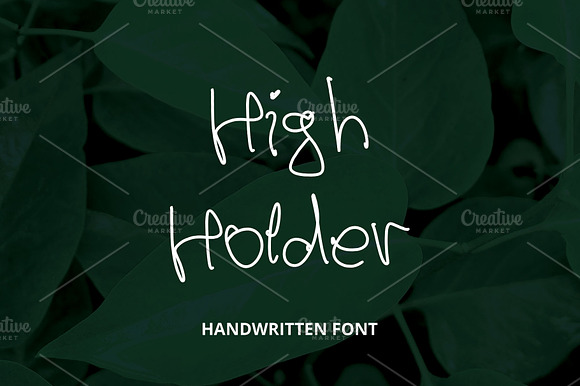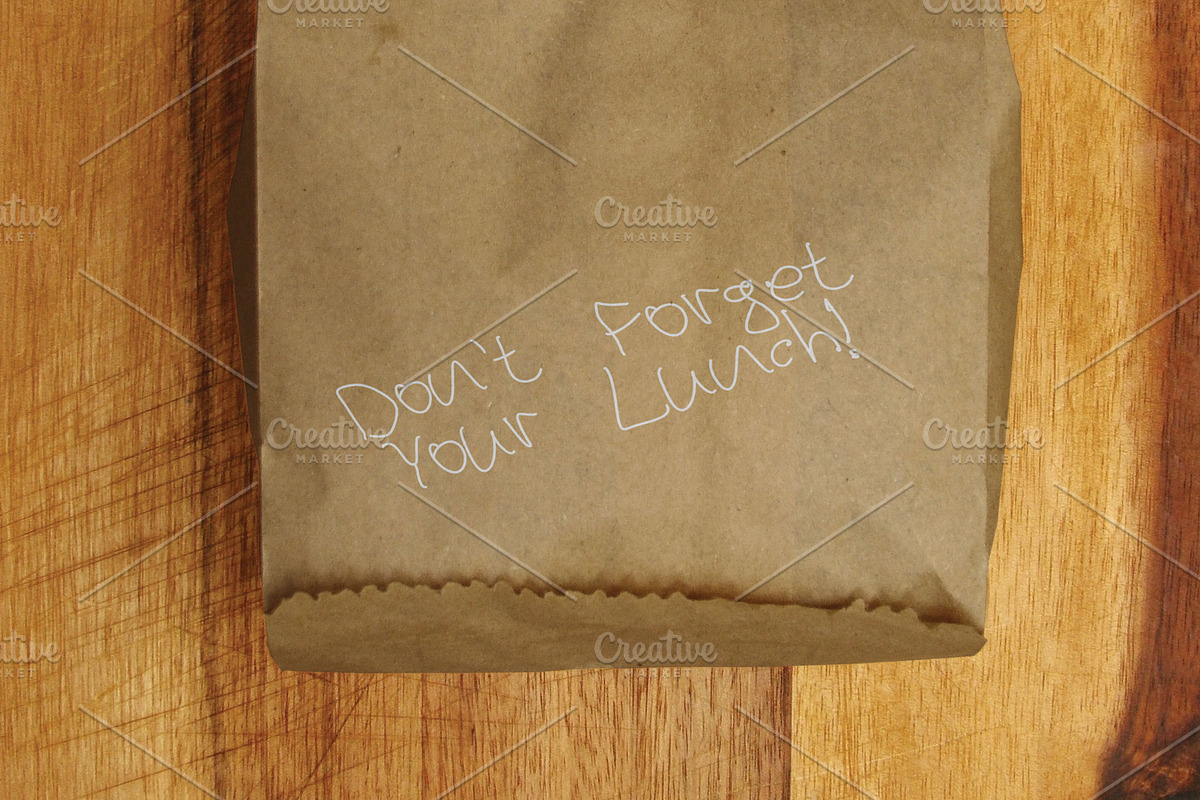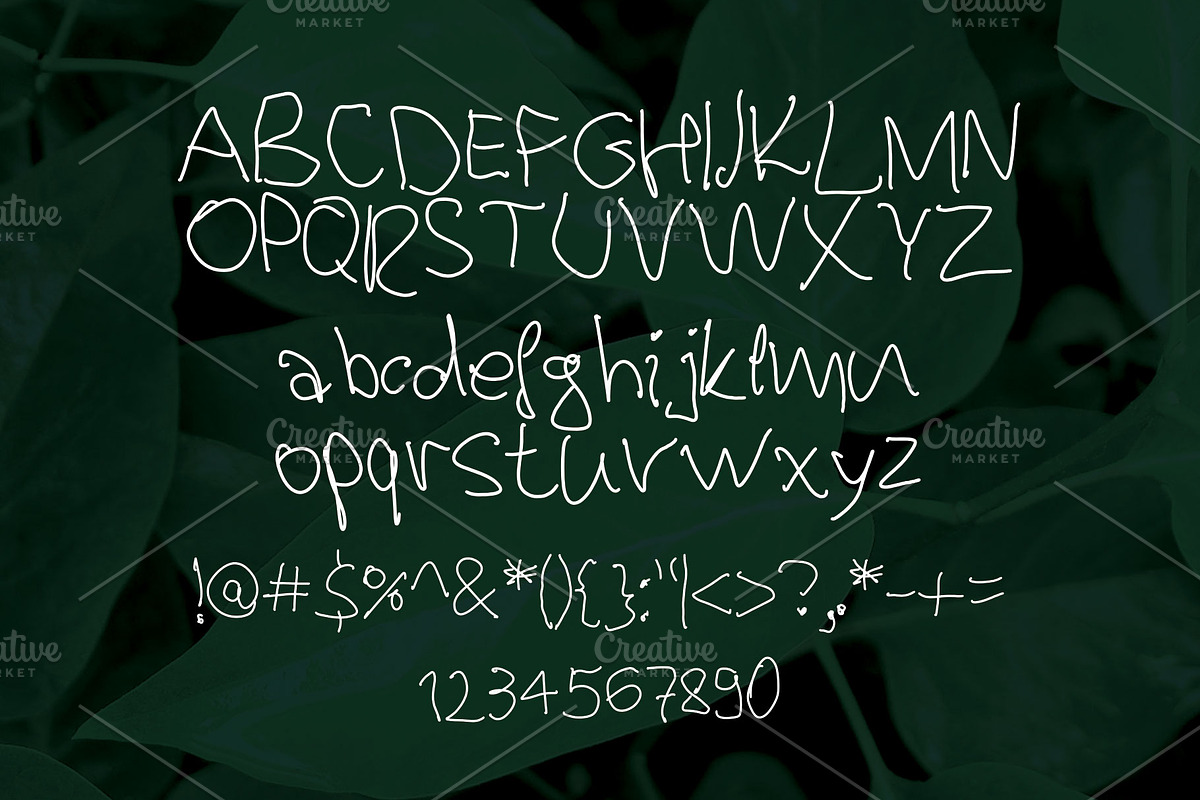
High Holder - Handwritten Font
Handwritten font with a casual, freehand style.
Suitable for greeting cards, branding materials, business cards, quotes, posters, packaging, logos, etc.
You can view all the letters, numbers and symbols in the 2nd preview image.
High Holder - Handwritten Font by MHLY fits naturally into Branding, posters, packaging, typography.